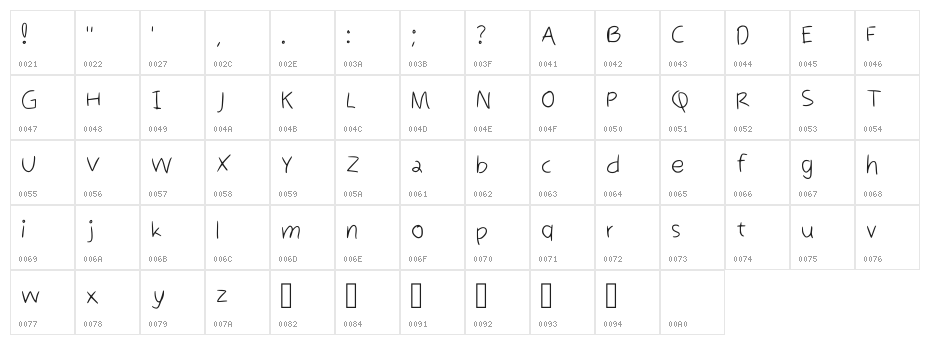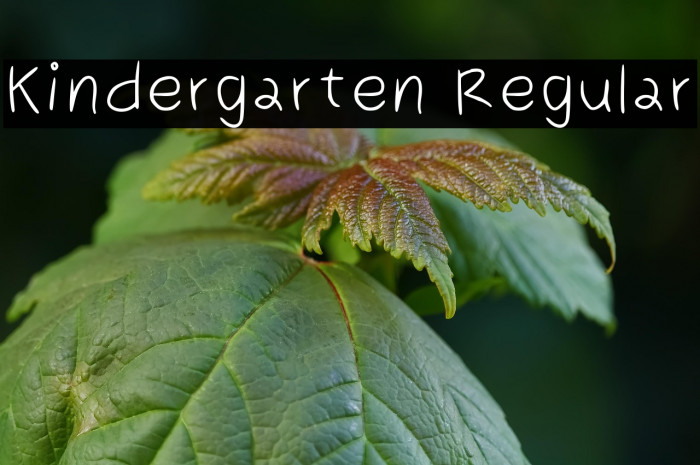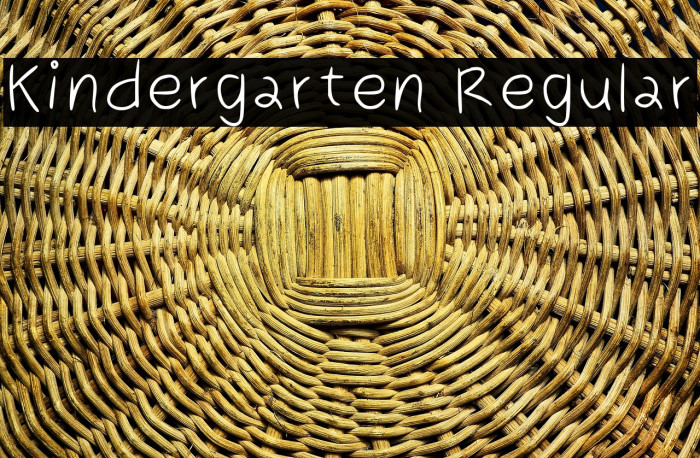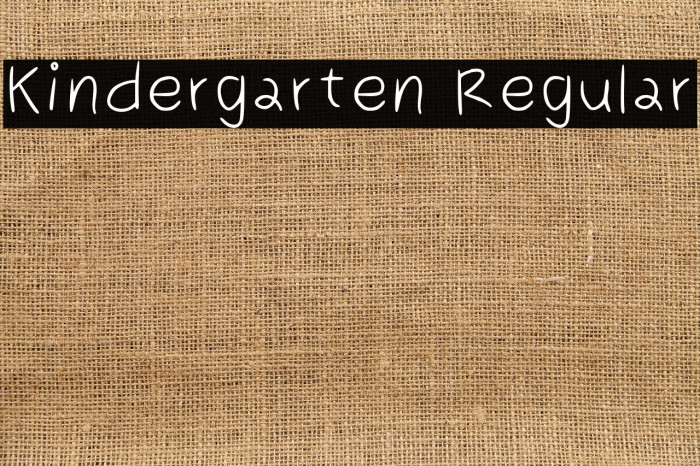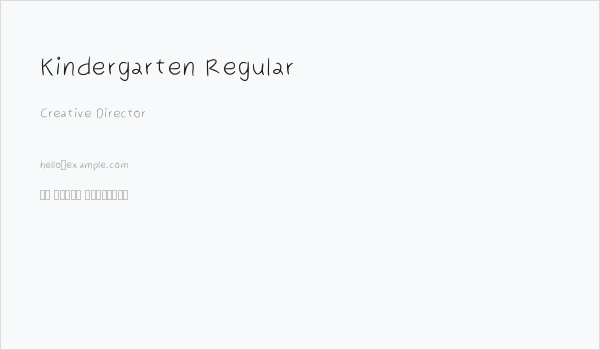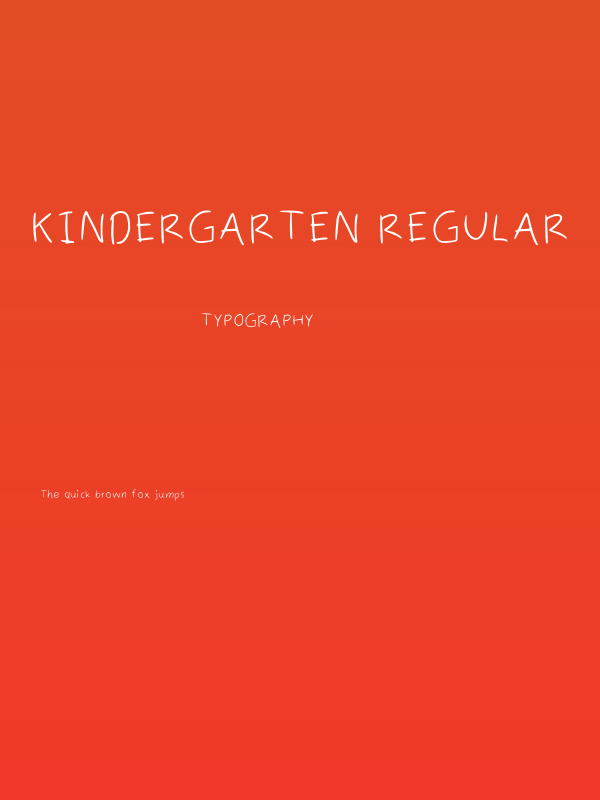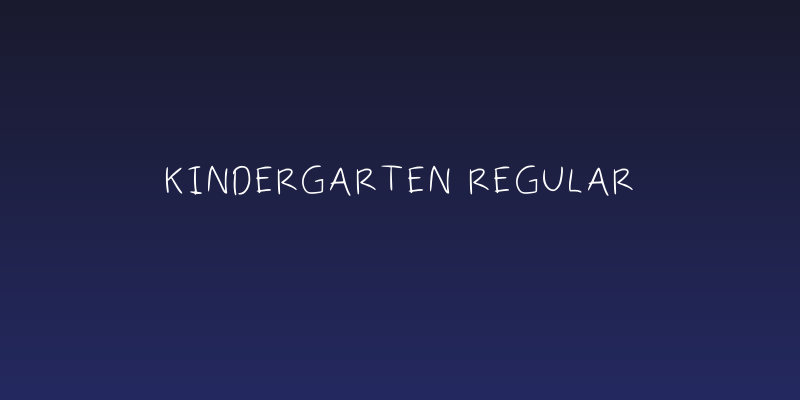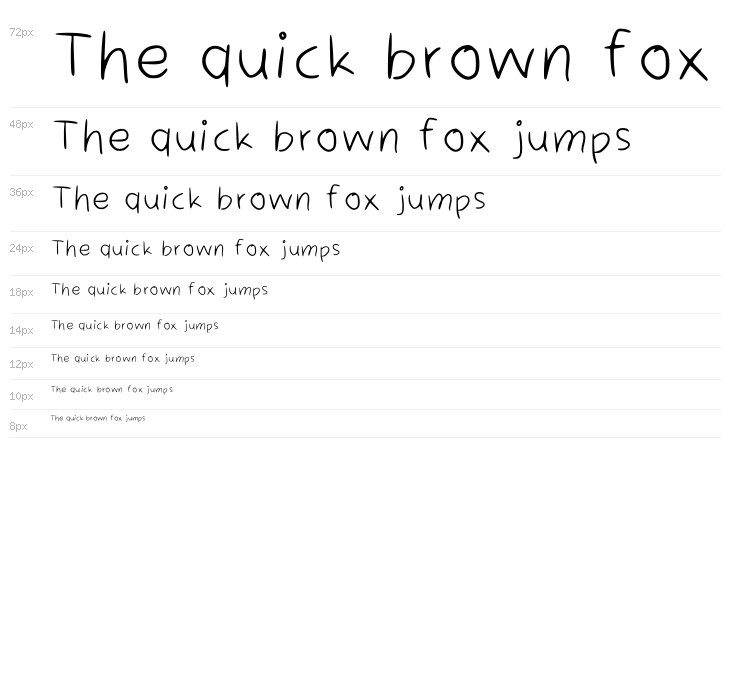
Kindergarten Regular Font
Kindergarten Regular Description
This playful and informal font mimics the handwriting style of young children, featuring irregular strokes and a casual, friendly appearance. The letters are slightly uneven, adding to its charm and authenticity. The font maintains a consistent line weight, providing a clean and approachable look. Its simplicity and warmth make it ideal for educational materials, children's books, and playful designs. The characters are well-spaced, ensuring readability while retaining a whimsical touch.
| Use Case | Headlines, Educational materials, Children's books |
| Proposed Projects | Ideal for children's books, educational materials, playful invitations, and greeting cards. |